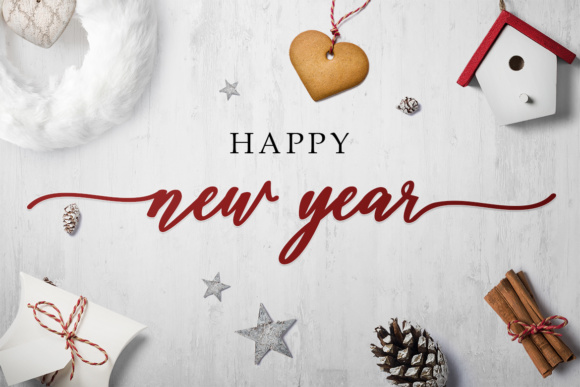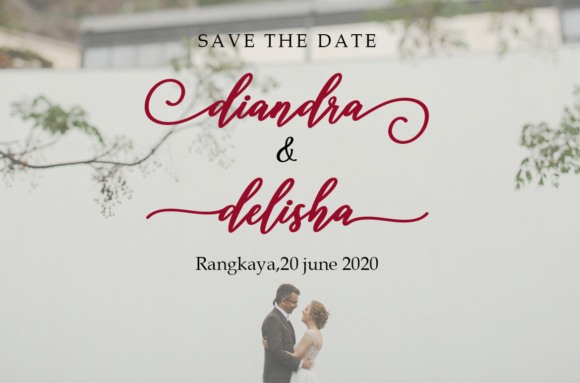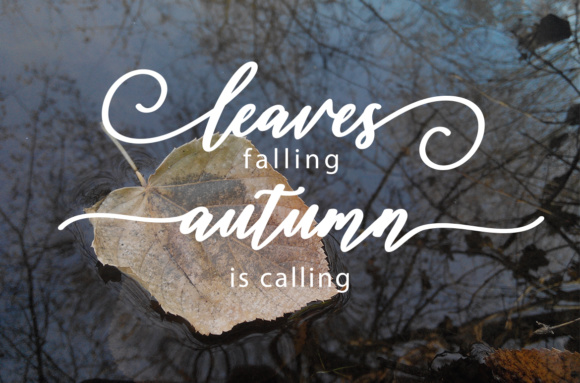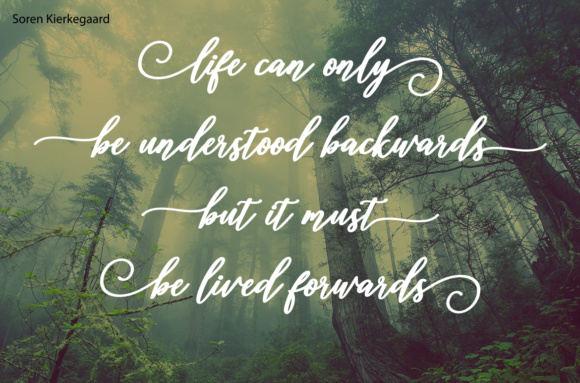
The Perfect Script for Your Next Design Project
Have you ever been in a creative rut, staring at a blank canvas or screen, wondering how to bring your vision to life? You’re not alone. Sometimes, all it takes is the right tool to spark inspiration and get those creative juices flowing. For designers, this can be as simple as discovering the perfect font.
Enter the Diantha Script Font, a beautiful and elegant script font that’s perfect for adding a touch of sophistication to your designs. Whether you’re working on a branding project, creating a wedding invitation, or designing a social media graphic, this font is sure to elevate your work. Its modern style makes it versatile and valuable for designers, allowing you to create a wide range of designs that are both visually appealing and effective.
- Unique Characteristics: Elegant, cursive script font with a modern and sophisticated feel, ideal for creative and artistic projects
Diantha Script Font Review
I recently had the chance to work with the Diantha Script Font, and I must say it’s a unique and elegant addition to any design project. Here’s my honest review:
- The Diantha Script Font has a beautiful, flowing feel to it, making it perfect for invitations, wedding stationery, or any other design that requires a touch of sophistication.
- The font is highly customizable, allowing you to adjust the weight, size, and spacing to fit your specific needs.
- The font also includes a range of alternate characters, which can add an extra layer of personality to your designs.
- The font may not be suitable for designs that require a lot of bold or heavy text, as the script style can become overwhelmed.
- The font also may not be the best choice for body text, as it can be difficult to read in large blocks of text.
Overall, I think the Diantha Script Font is a great addition to any designer’s toolkit, but it’s essential to use it judiciously and in the right context. With its beautiful, flowing script and high level of customization, it’s perfect for adding a touch of elegance to your designs.
The Diantha Script font is ideal for:
– Wedding invitations and stationery
– Branding and logo designs
– Personalized gift tags and cards
– Social media graphics and posts
– Creative and artistic projects
Getting the Most Out of Diantha Script
For optimal results, pair the Diantha Script font with a clean and modern sans-serif font. Experiment with different font sizes, colors, and styles to create visually appealing combinations. Use the font for headings, titles, and emphasis to add a touch of elegance and sophistication to your designs.